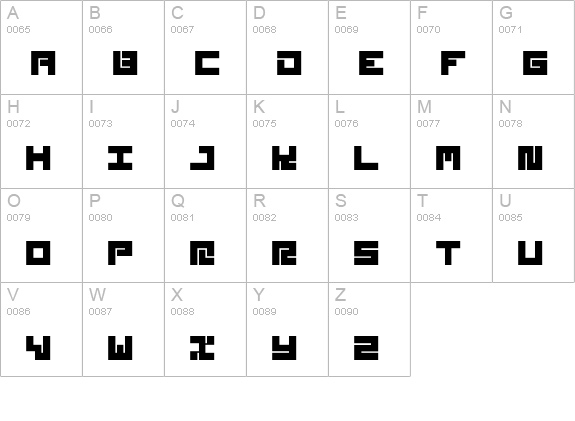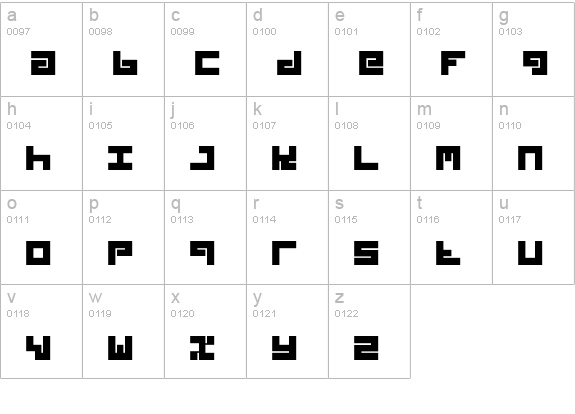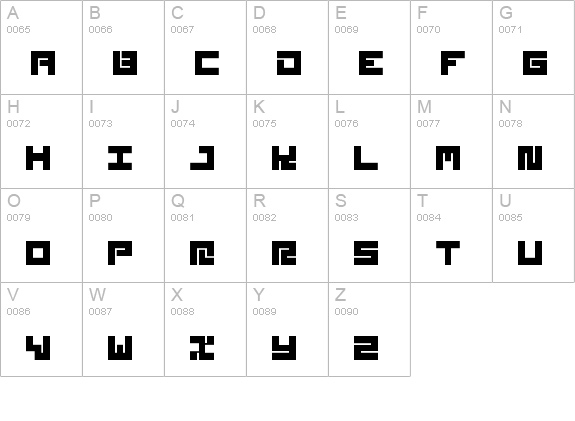
Styl-Regular Font Details
Styl-Regular is the standard, neutral variant in the Styl typeface family \xE2\x80\x94 well suited to general body text, paragraphs, and standard typographic work.
Styl-Regular is a versatile and modern font that exudes elegance and sophistication. With its clean lines and balanced proportions, this typeface is perfect for a wide range of design projects, from branding to editorial design. The Styl-Regular font is a timeless classic that will add a touch of sophistication to any project. Best of all, Styl-Regular is available for free download at FontsMarket.com. This means you can easily access this beautiful font and use it in your projects without any cost. Don't miss out on the opportunity to enhance your designs with the timeless beauty of Styl-Regular font. Download it today and elevate your designs to the next level.